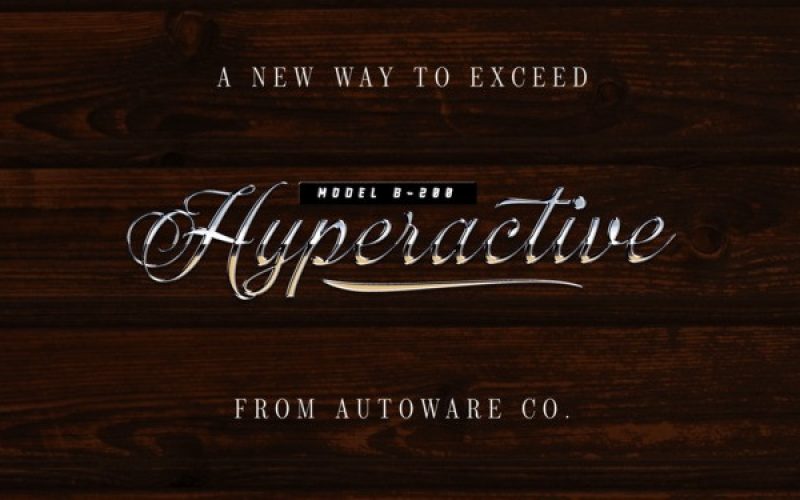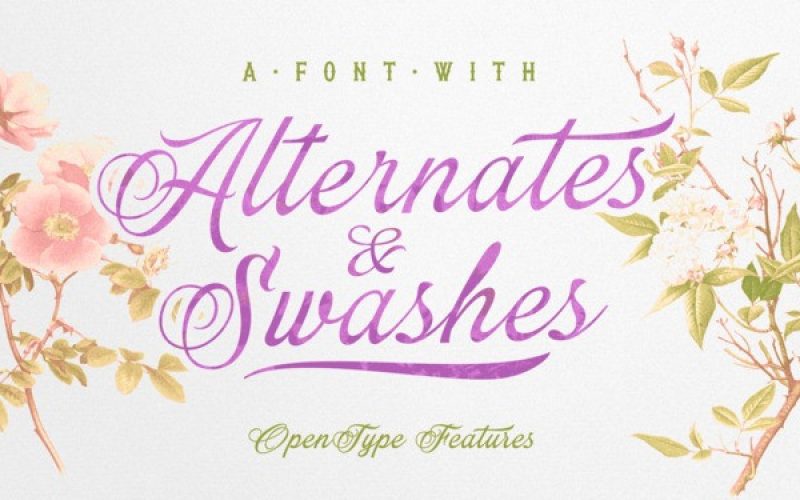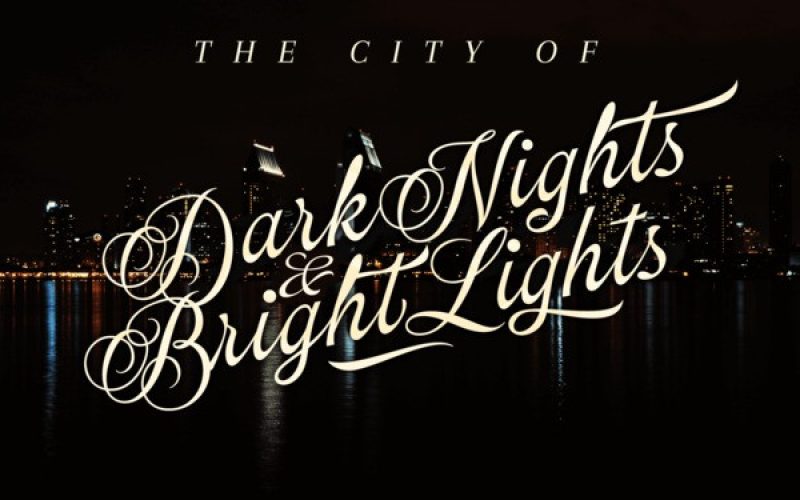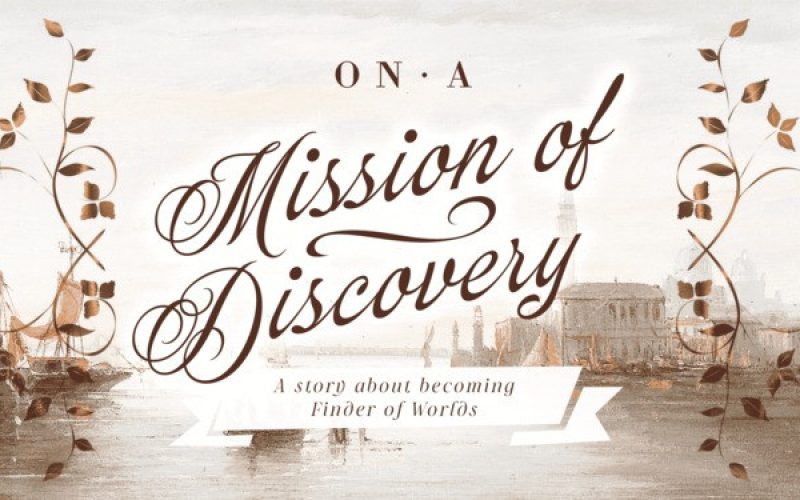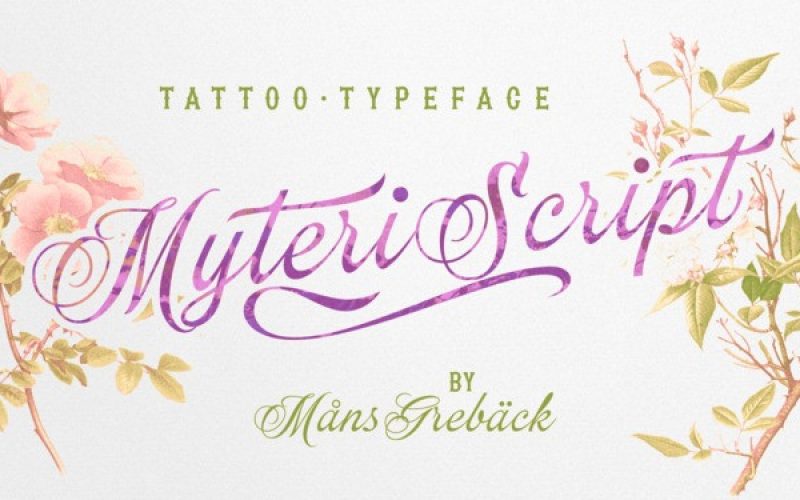
Myteri Script Font
Myteri Script is an expressive calligraphy font.
Drawn and created by Mans Greback, this handwritten lettering has a wild personality and tough appearance, with tattoo-inspired shapes and vivid movements.It is provided in four slant and weight styles to further extend the possibilities of use.
The font is built with advanced OpenType functionality and has a guaranteed top-notch quality, containing stylistic and contextual alternates, ligatures and more features; all to give you full control and customizability. It has extensive lingual support, covering all European Latin-based languages. It contains all characters and symbols you’ll ever need, including all punctuation and numbers.